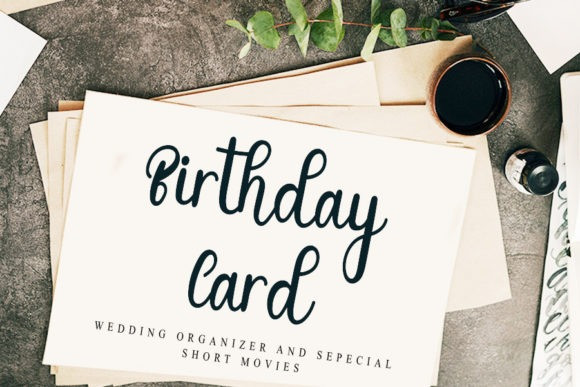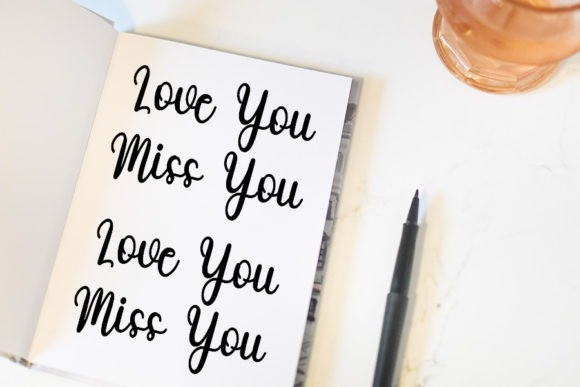
Meghina Font
Meghina Script Font is a lovely handwritten font. This versatile script font has a wide spectrum of applications ranging from greeting cards to headlines and is guaranteed to add a romantic feel to your next project.